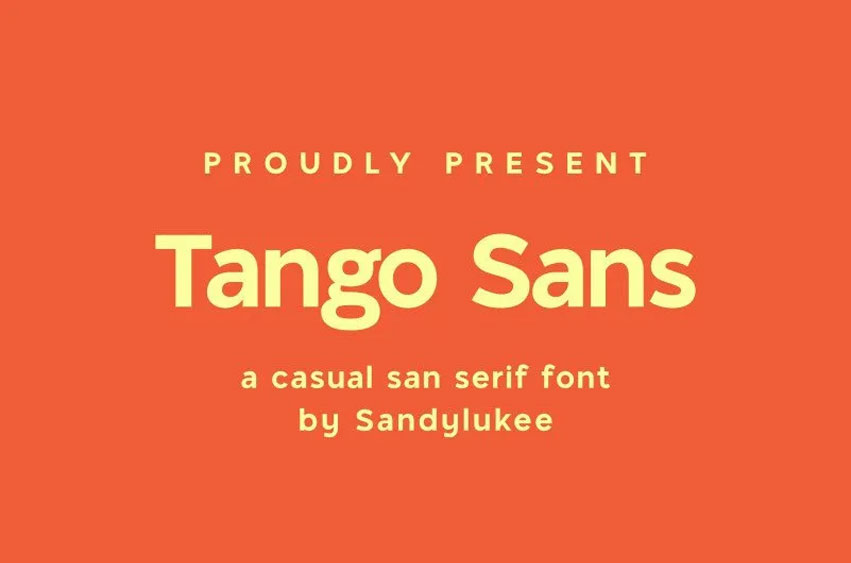
Tango Sans Font
Tango Sans Font is a modern sans serif font family created by Sandylukee with a geometric twist.
Tango is suitable for headlines, posters, signages, just anything that requires a creative Look. And it’s ready to make an enduring impression on your design projects.